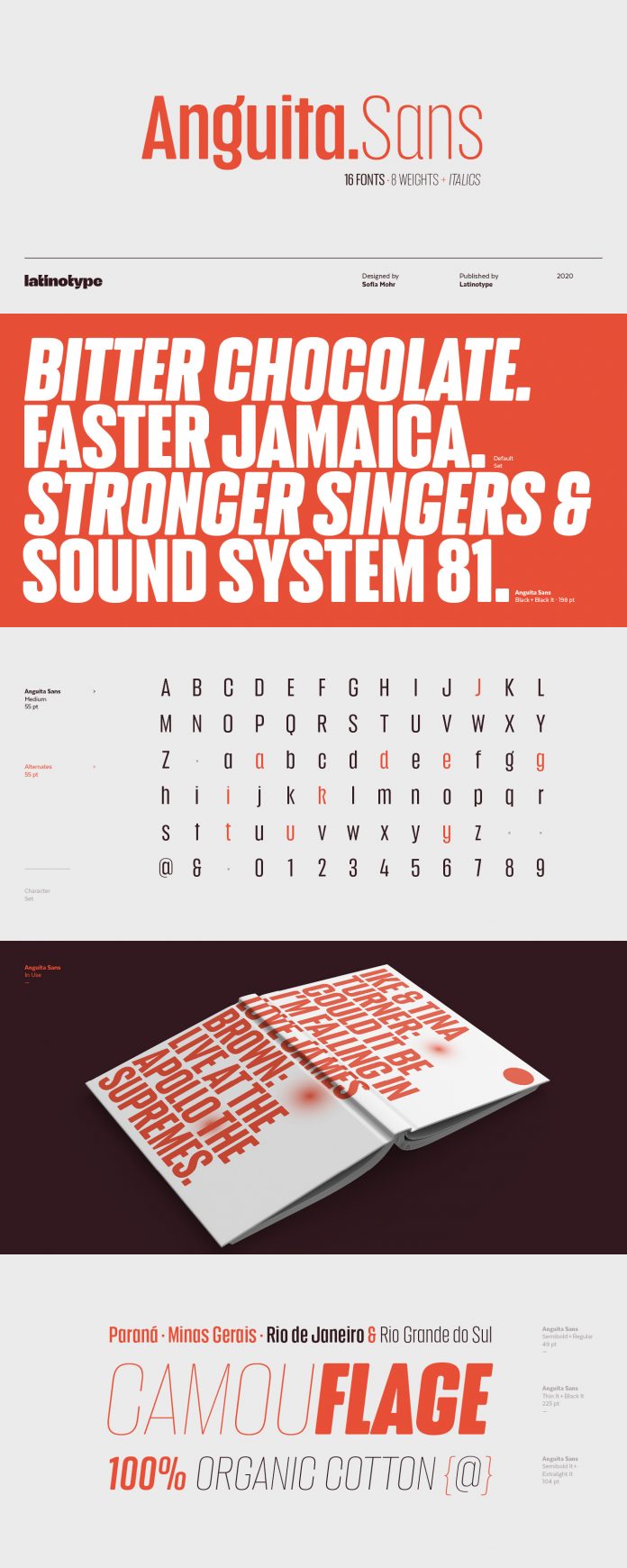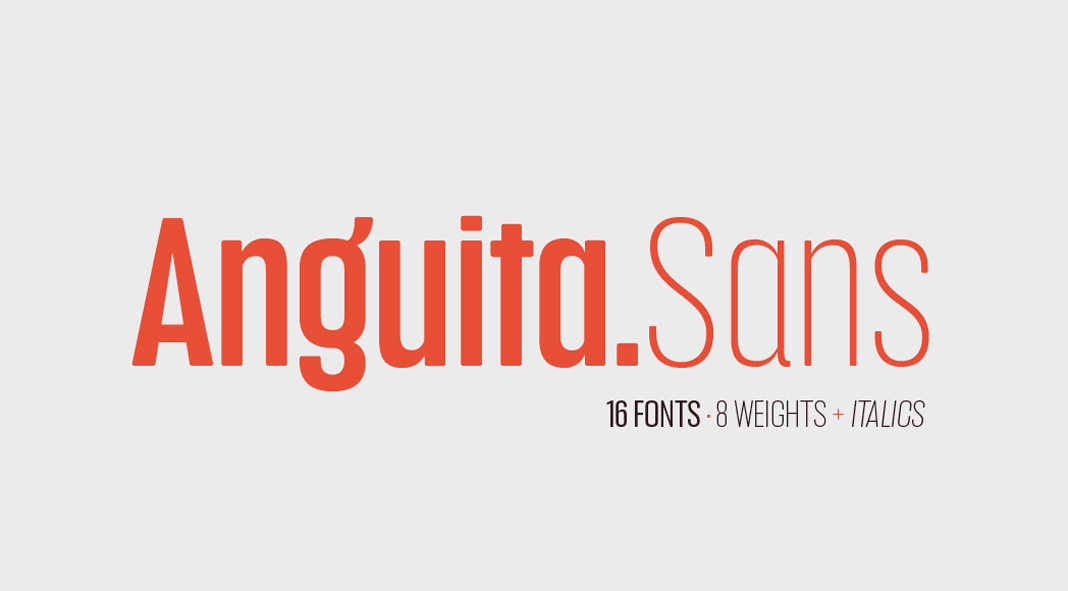
Designed by Sofia Mohr for type foundry Latinotype, Anguita Sans is a sans serif font family that comes with sixteen styles.
The Anguita Sans font family is characterized by its condensed letter shapes as well as rounded terminals and a large x-height. The modern typeface allows you to create headings and text sections with a distinctive vertical rhythm. Anguita Sans is equipped with eight weights plus matching Italics resulting in a total of sixteen styles. Whether print or digital media, this super-stylish typeface is well suited for plenty of typographic applications including headlines and short text sections.